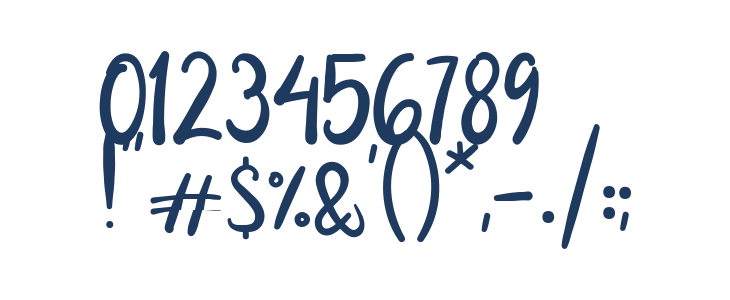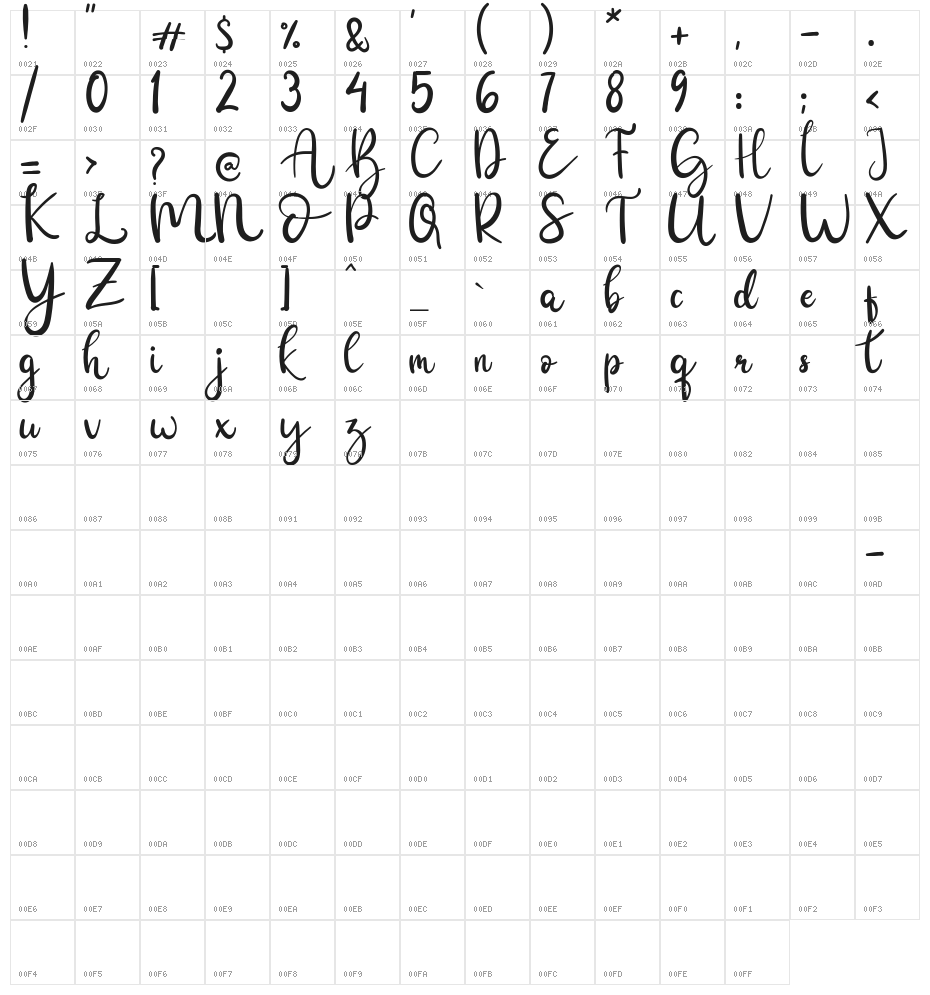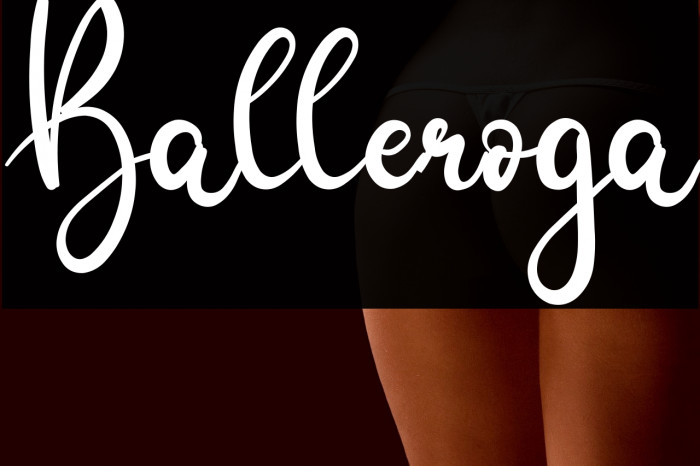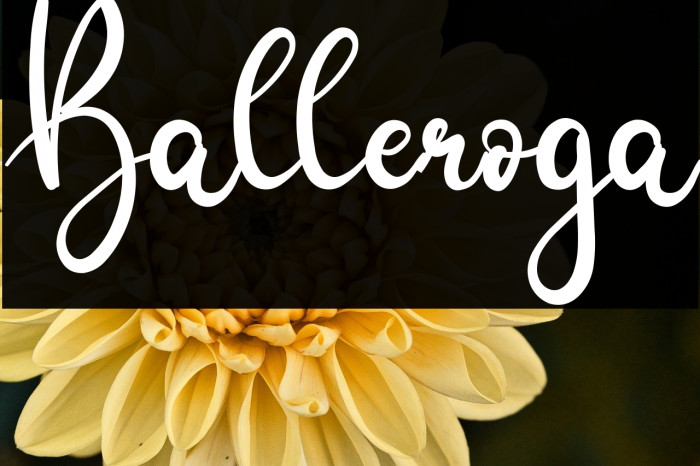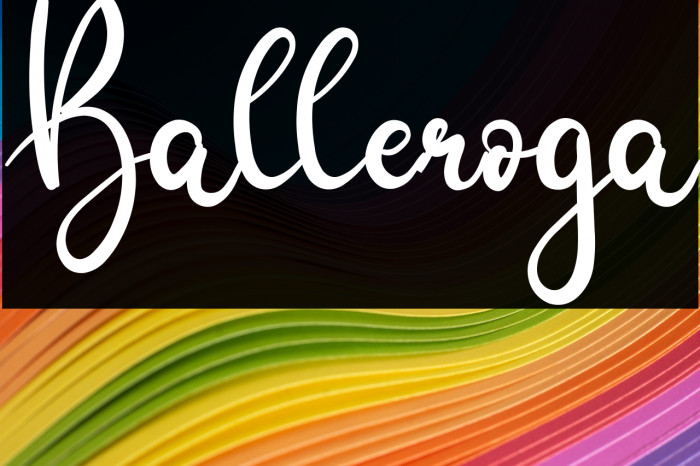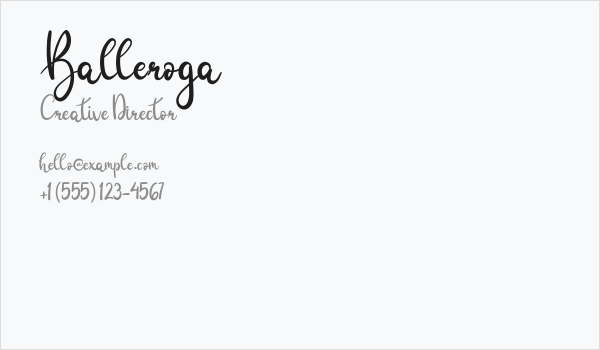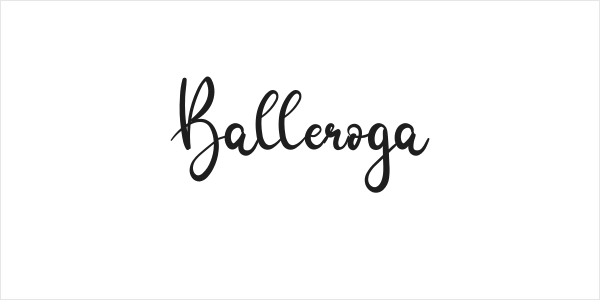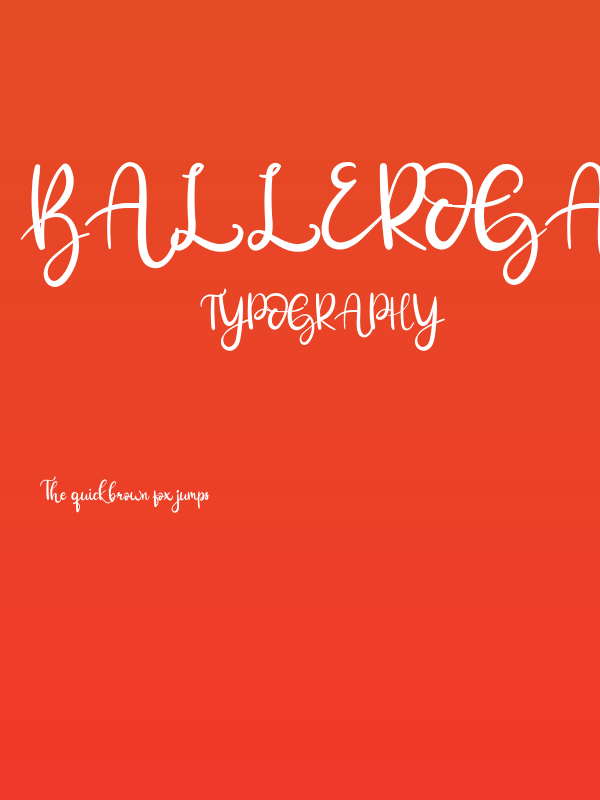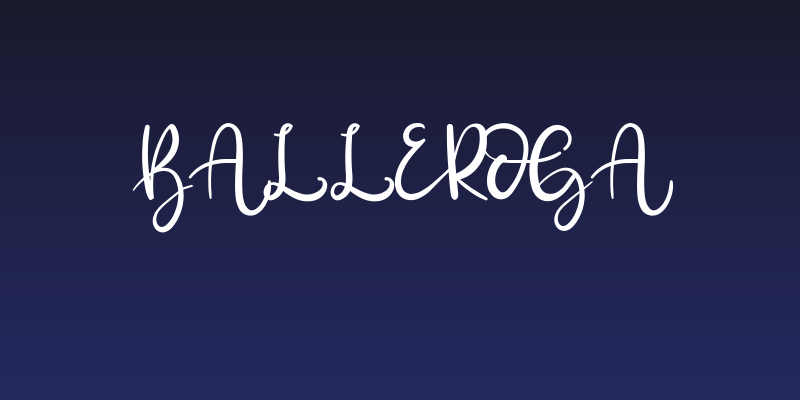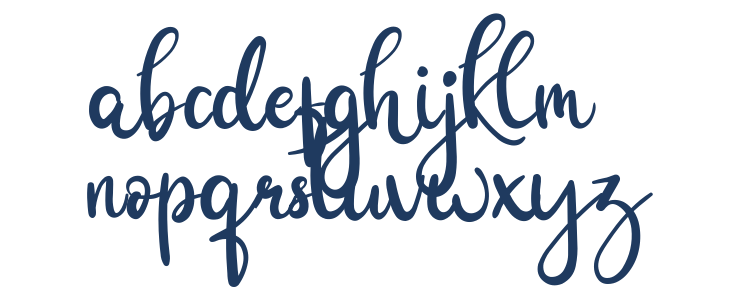
Balleroga Font
Balleroga Description
This font features a playful and energetic script style, characterized by its flowing and interconnected letterforms. The uppercase letters are bold and dynamic, with a slight slant that adds to the overall movement of the text. The lowercase letters maintain the same lively quality, with loops and curves that create a sense of rhythm. Numbers and special characters are designed to match the whimsical nature of the alphabet, making them suitable for creative and informal applications. The font's overall appearance is both modern and approachable, making it ideal for projects that require a personal touch.
| Proposed Projects | Ideal for greeting cards, invitations, branding, and social media graphics. |